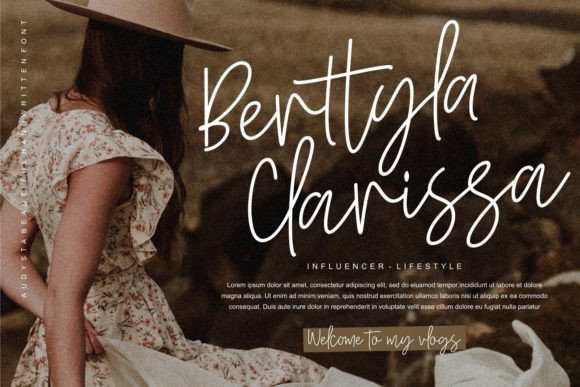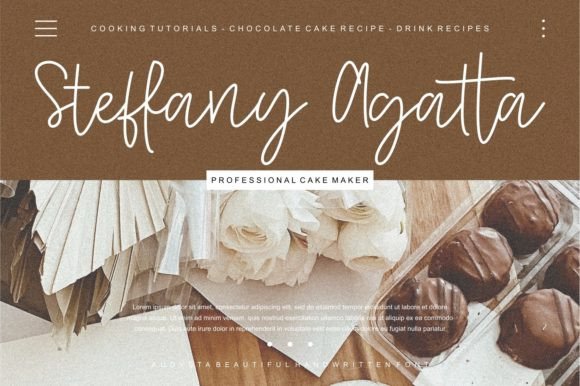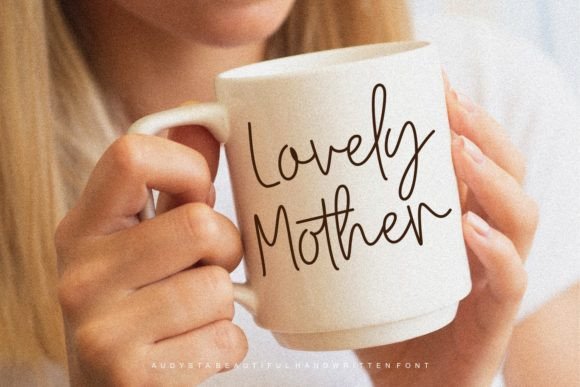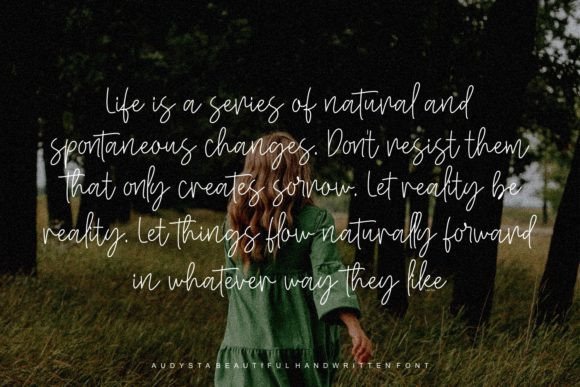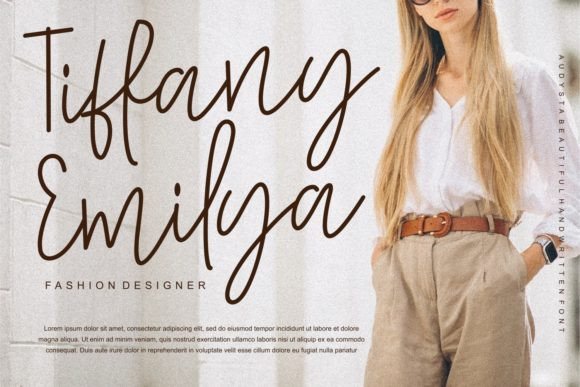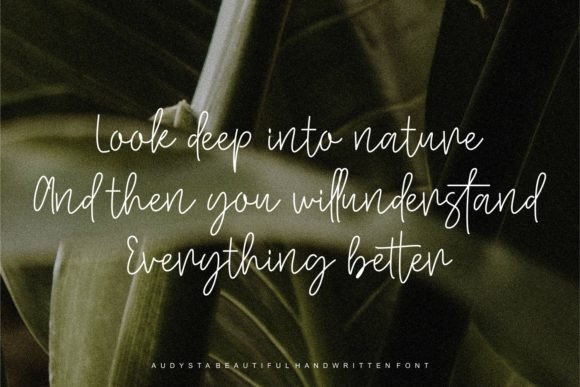
Audysta Font: Elevate Your Designs with Elegance and Sophistication
In the world of typography, a font can make or break a design. If you’re a designer or crafter looking for a typeface that exudes elegance and sophistication, look no further than Audysta Font. This stunning handwriting font is designed to add a touch of refinement to any project, making it perfect for a wide range of applications, from wedding invitations to social media graphics and branding materials.
The Characteristics of Audysta Typeface
Audysta Typeface is an elegant and attention-grabbing handwriting font that boasts bold strokes and stylish curves. Its unique design makes it stand out from other fonts, giving it a distinctive and sophisticated look that’s sure to capture the attention of your audience. Whether you’re creating a wedding invitation, a social media graphic, or a branding material, Audysta Font is the perfect choice.
What Makes Audysta Font Special?
One of the things that sets Audysta Font apart from other typefaces is its PUA (Private Use Area) encoding. This means that you can access all glyphs and swashes effortlessly, giving you complete creative control over your design. With Audysta Font, you can easily add flourishes and swashes to your text, making it truly unique and eye-catching.
Uses of Audysta Font
Audysta Font is a versatile typeface that can be used in a wide range of applications. Here are some ideas to get you started:
- Wedding Invitations: Add a touch of elegance to your wedding invitations with Audysta Font. Its bold strokes and stylish curves make it perfect for creating beautiful and sophisticated wedding stationery.
- Social Media Graphics: Create stunning social media graphics with Audysta Font. Its unique design makes it perfect for grabbing the attention of your audience and adding a touch of sophistication to your social media posts.
- Branding Materials: Use Audysta Font to create professional and elegant branding materials, such as business cards, brochures, and letterheads.
- Crafting: Audysta Font is also perfect for crafters who love to create handmade cards, scrapbooking, and other paper crafts. Its elegant design makes it perfect for adding a touch of sophistication to your creations.
Why Choose Audysta Font?
There are many reasons why you should choose Audysta Font for your next design project. Here are a few:
- Elegant Design: Audysta Font boasts an elegant and sophisticated design that’s sure to capture the attention of your audience.
- Versatility: Audysta Font is a versatile typeface that can be used in a wide range of applications, from wedding invitations to social media graphics and branding materials.
- PUA Encoding: Audysta Font is PUA encoded, making it easy to access all glyphs and swashes effortlessly.
In conclusion, Audysta Font is a stunning handwriting font that’s perfect for designers and crafters who want to add a touch of elegance and sophistication to their designs. Its bold strokes and stylish curves make it perfect for creating stunning designs, from wedding invitations to social media graphics and branding materials. With its PUA encoding and easy-to-use design, Audysta Font is a must-have for any designer or crafter looking to elevate their designs to the next level.